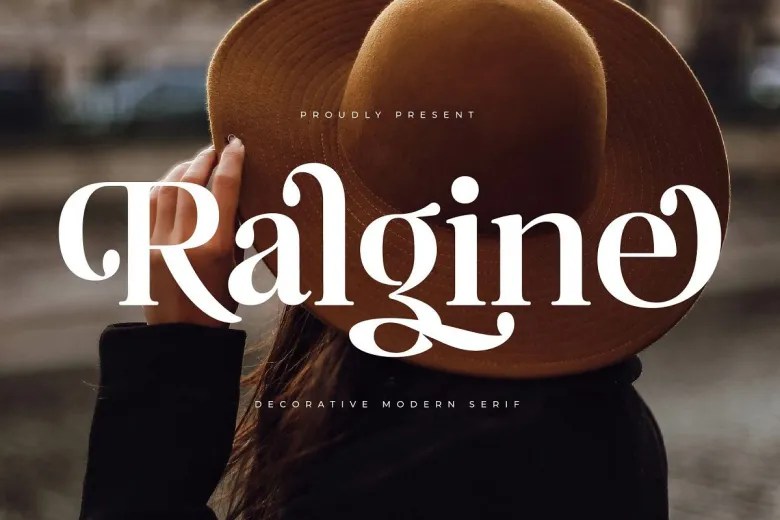
Ralgine Font
Ralgine is a classic serif font distinguished by its timeless appeal and sophisticated details. With its elegant lines and refined design, Ralgine captivates readers and adds a touch of class to any project. The font’s lavish style enhances the sophistication of your designs, making it a perfect choice for creating a lasting impression.
Ideal for a variety of uses, Ralgine excels in projects requiring a touch of elegance. Whether it’s for logos, branding, homeware designs, packaging, quotes, mugs, shopping bags, posters, book covers, greeting cards, invitation cards, labels, or special occasions, Ralgine brings a sense of luxury and refinement to every application.